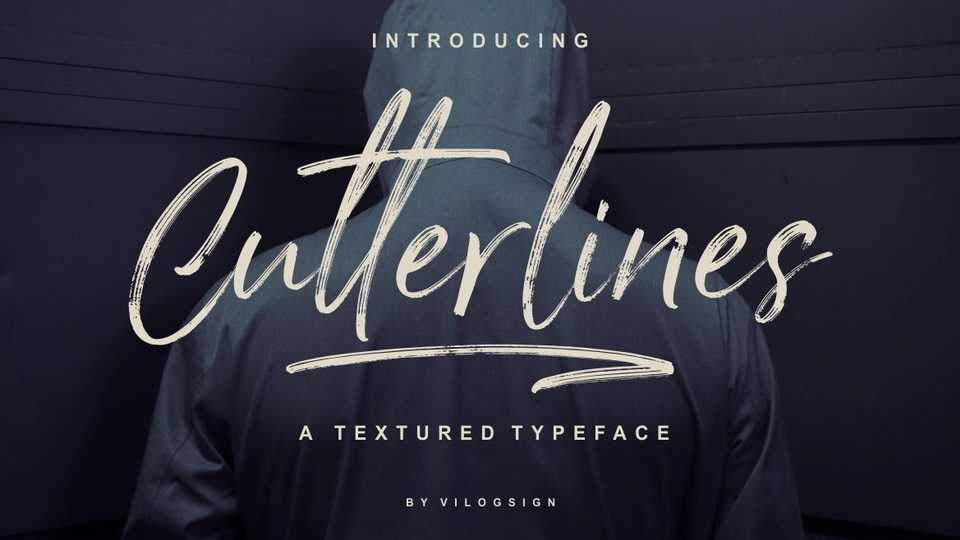
Download Cutterlines font, a bold textured brush script. Cutterlines features a rustic style and brings cute rush vector extras and coffee vectors to brighten up all your crafting projects.